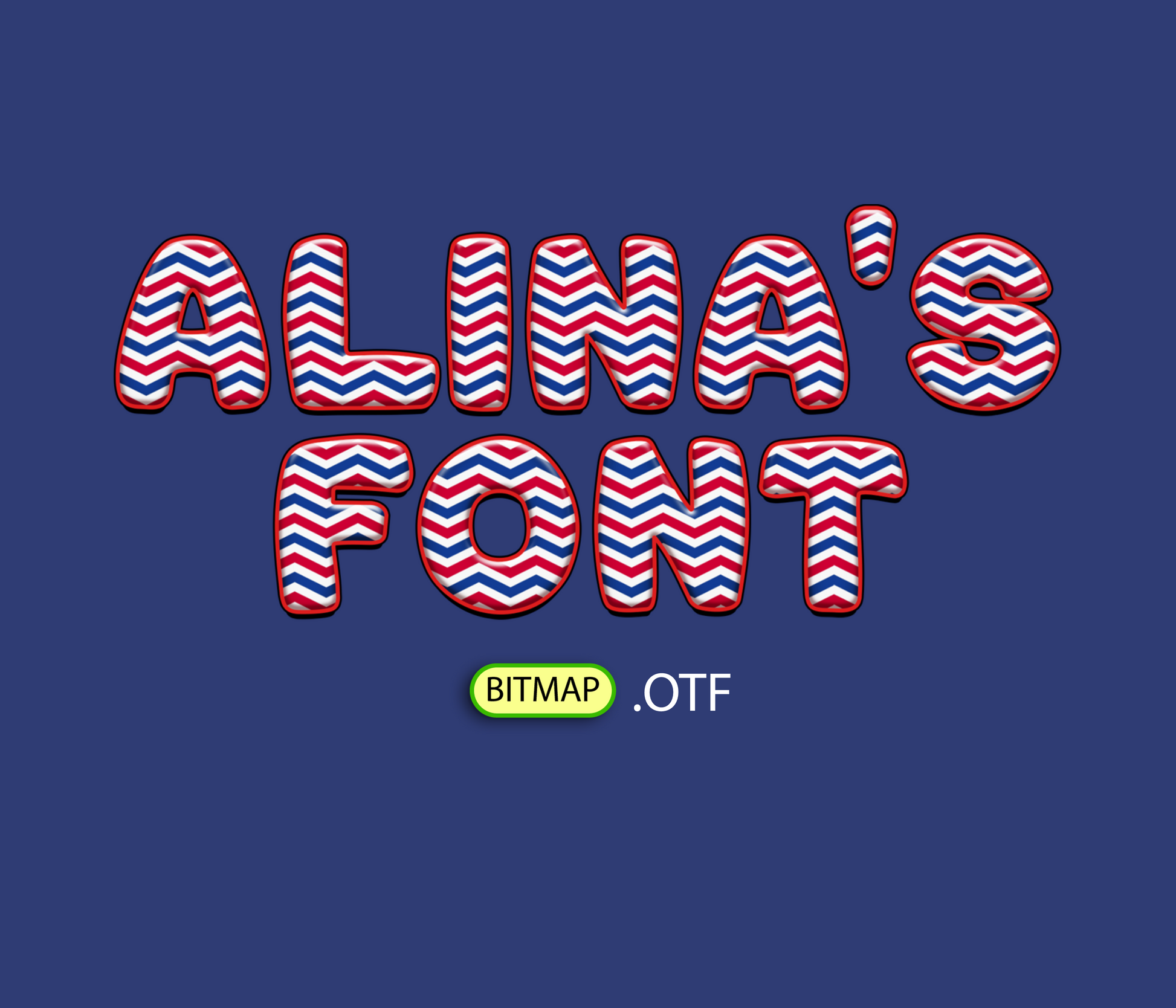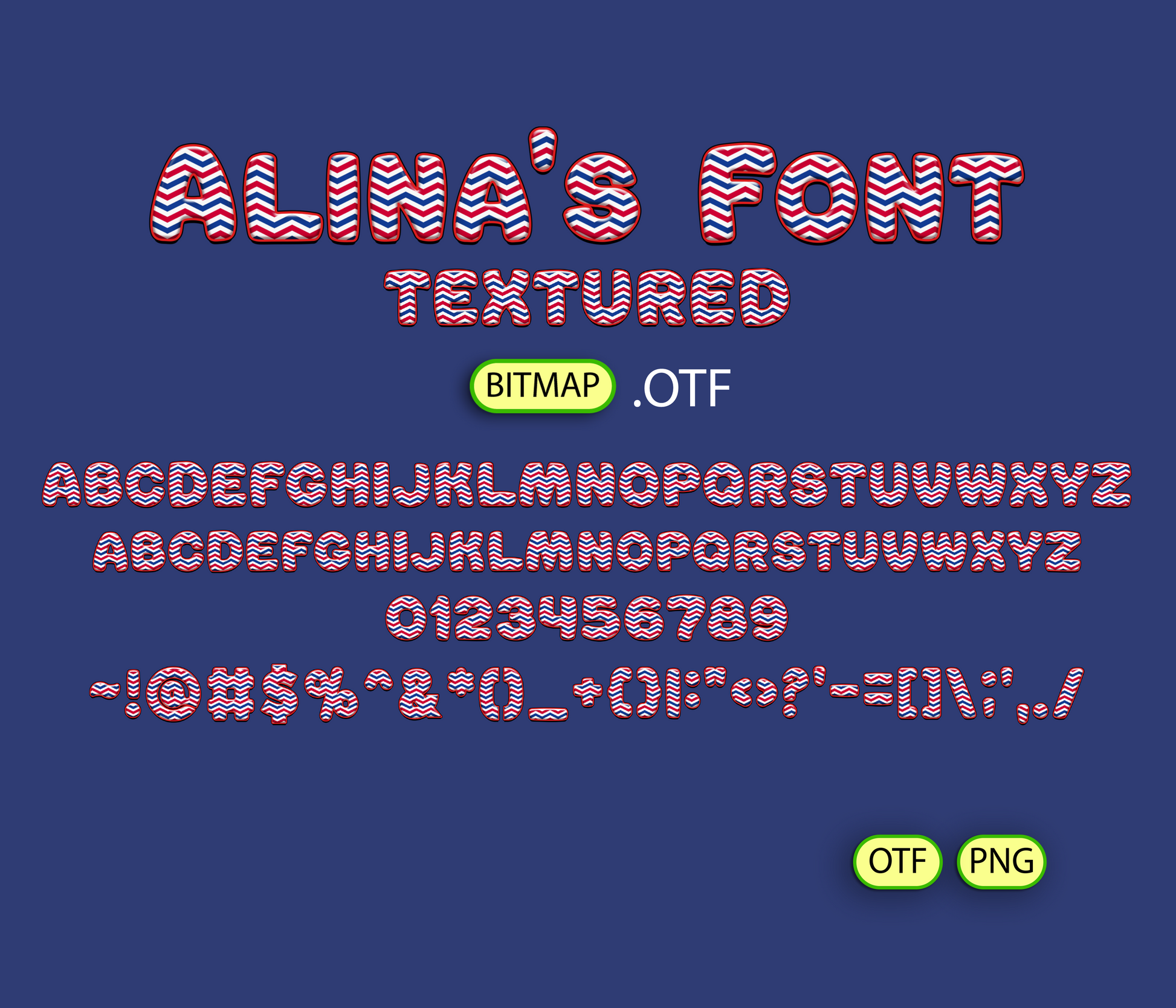
FREE Independence Day Patriotic Style Pattern Font
Independence Day Pattern Font Textured Patriotic Style
Step into the spirited world of American celebration with our Independence Day Pattern font, capturing the essence of patriotic festivities and national pride. Perfect for holiday events, party planners, patriotic content creators, and creative professionals, this font brings the bold, celebratory spirit of freedom and liberty to your projects. Create memorable invitations, patriotic-themed merchandise, or digital content with the vibrant, festive energy of America's birthday celebration.
Our Independence Day Pattern font features bold, star-spangled shapes and patriotic characters reflecting the classic yet dynamic aesthetic of American celebrations. Ideal for:
- Holiday Events: Create show-stopping invites, posters, and banners for barbecue parties, fireworks displays, and patriotic gatherings
- Patriotic Design: Perfect for parade banners, memorial promotions, and freedom-themed party accessories that capture national spirit
- Digital Media: Enhance websites, blogs, and social media with patriotic headers and graphics that express liberty and celebration
- Entertainment Content: Add authentic character to holiday materials, parade designs, and promotional materials for community events
- Personal Projects: Bring patriotic flair to scrapbooking, DIY crafts, and home decor inspired by the aesthetics of American traditions